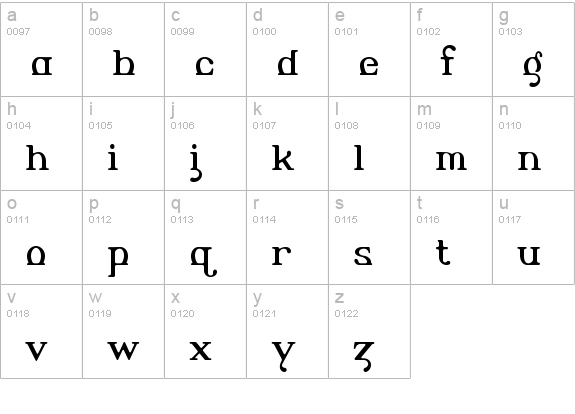
AlembicBeta-RegularTwo is a modern and versatile font that exudes elegance and sophistication. Its clean lines and smooth curves make it perfect for a wide range of design projects, from logos to branding to web design. The crisp and professional look of AlembicBeta-RegularTwo will make your text pop and stand out with a touch of class. What sets AlembicBeta-RegularTwo apart is that it is not only stylish and functional, but it is also completely free for personal and commercial use. You can easily download this font for free at FontsMarket.com, where you can find a wide selection of high-quality fonts for all your design needs. Don't miss out on the opportunity to elevate your projects with the timeless appeal of AlembicBeta-RegularTwo.